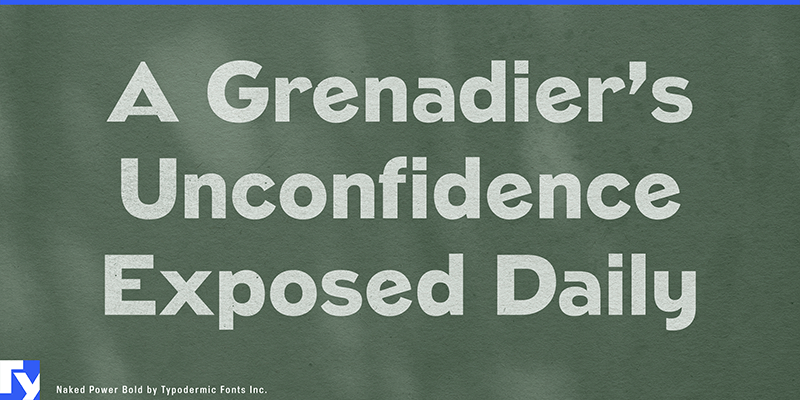
Naked Power
Naked Power is a geometric sans serif inspired by Morris Fuller Benton’s 1934 Eagle Bold. Known for its commanding presence in the National Recovery Administration’s Blue Eagle logo, that historic design carried a sense of authority that still resonates today. Naked Power builds on that legacy with a full alphabet and a wider stylistic range, allowing the design to move from refined editorial use to bold posters, signage, and campaign graphics. Strong verticals, squared counters, and softened joins give it a firm, confident voice that feels both historic and contemporary. These fonts include a license that allows free commercial use: sometimes referred to as a desktop license. This allows you to install the fonts on a computer and use them to create posters, web graphics, game graphics, t-shirts, videos, signs, logos and more. Read the license agreement for details. If you'd like to embed this font in an app, on the web or anything that's not covered by the desktop license agreement, visit the link below. You'll find distributors who offer different types of licenses, or you can contact me for help. https://typodermicfonts.com/naked-power/ These free fonts are part of a larger font family. Check out the rest of the family through the link above.